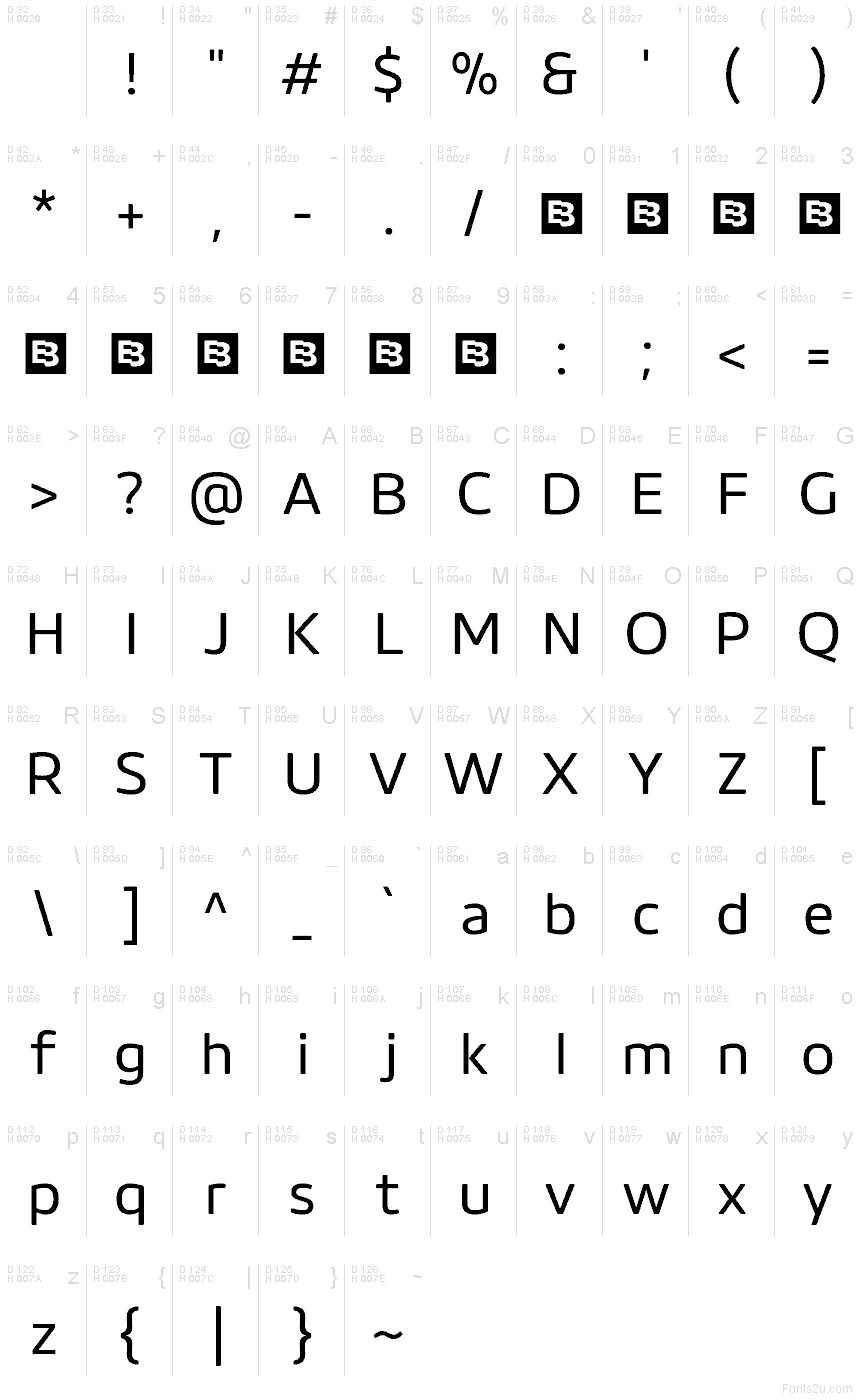
Digiva Trial Regular
Digiva font is a free sans serif font with smooth curves and a minimalistic design. Created by Eko Bimantara, it has a clean appearance with modern aspects and an approachable tone. The letters showcase contemporary aesthetics which give elegance, clarity, and professionalism for any project regardless of its audience.
Applications include packaging, posters, t-shirts, logos and branding designs, book covers, websites titles or body text in web design as well as fine typography artworks. Use it in greeting cards or personalized inside story contents to your family and friends in invitations etc.